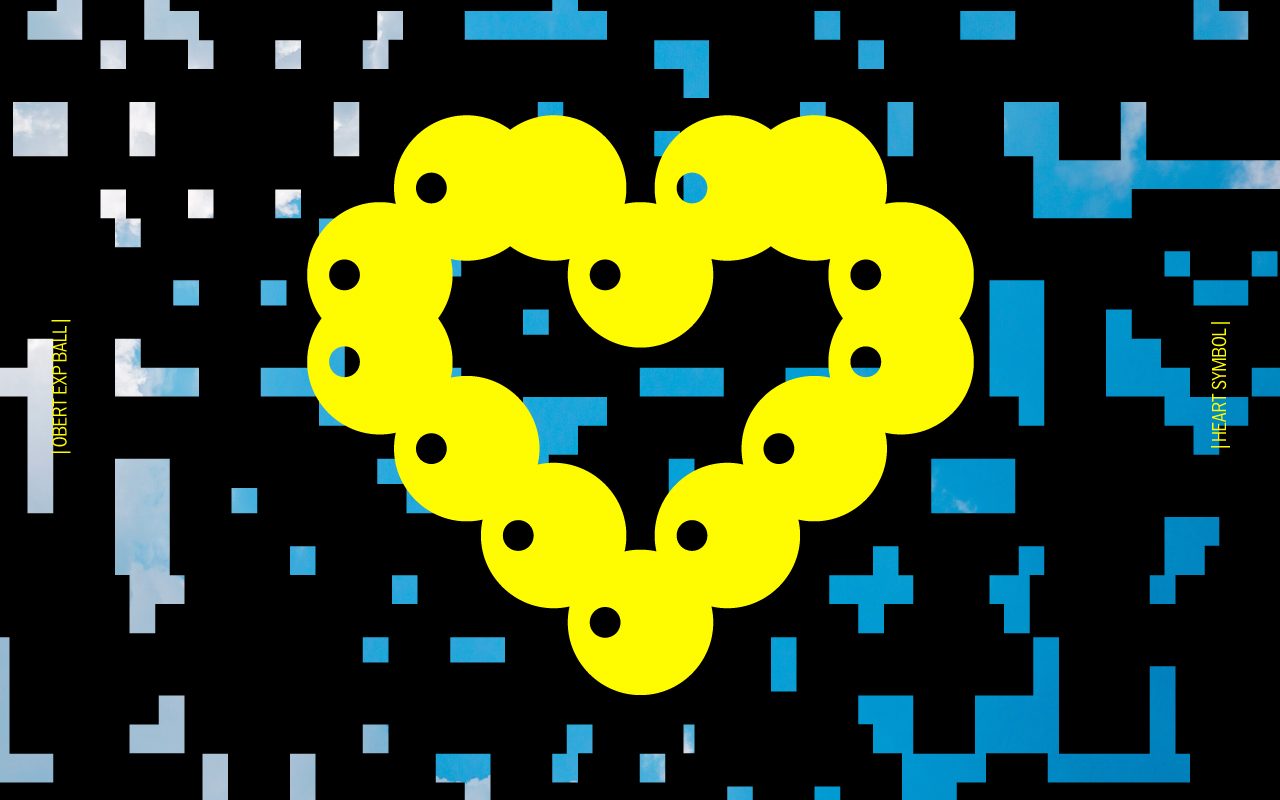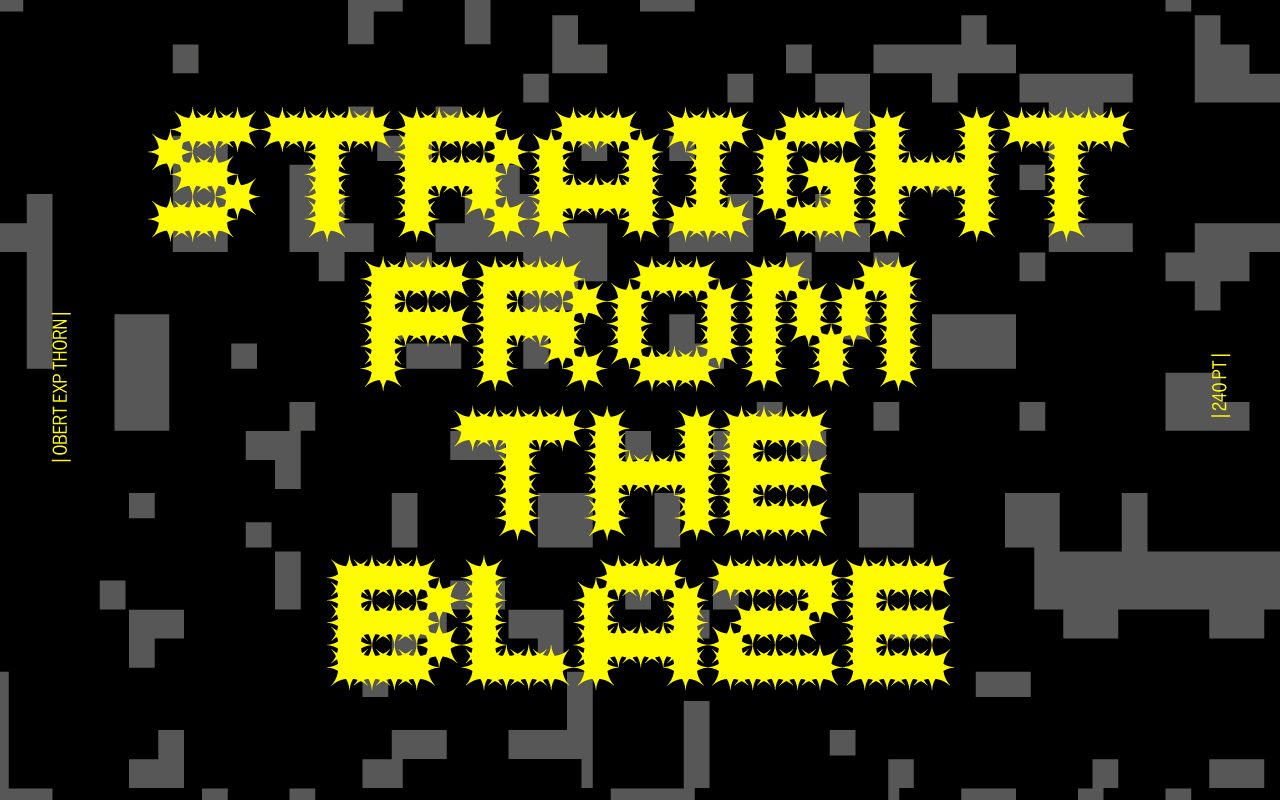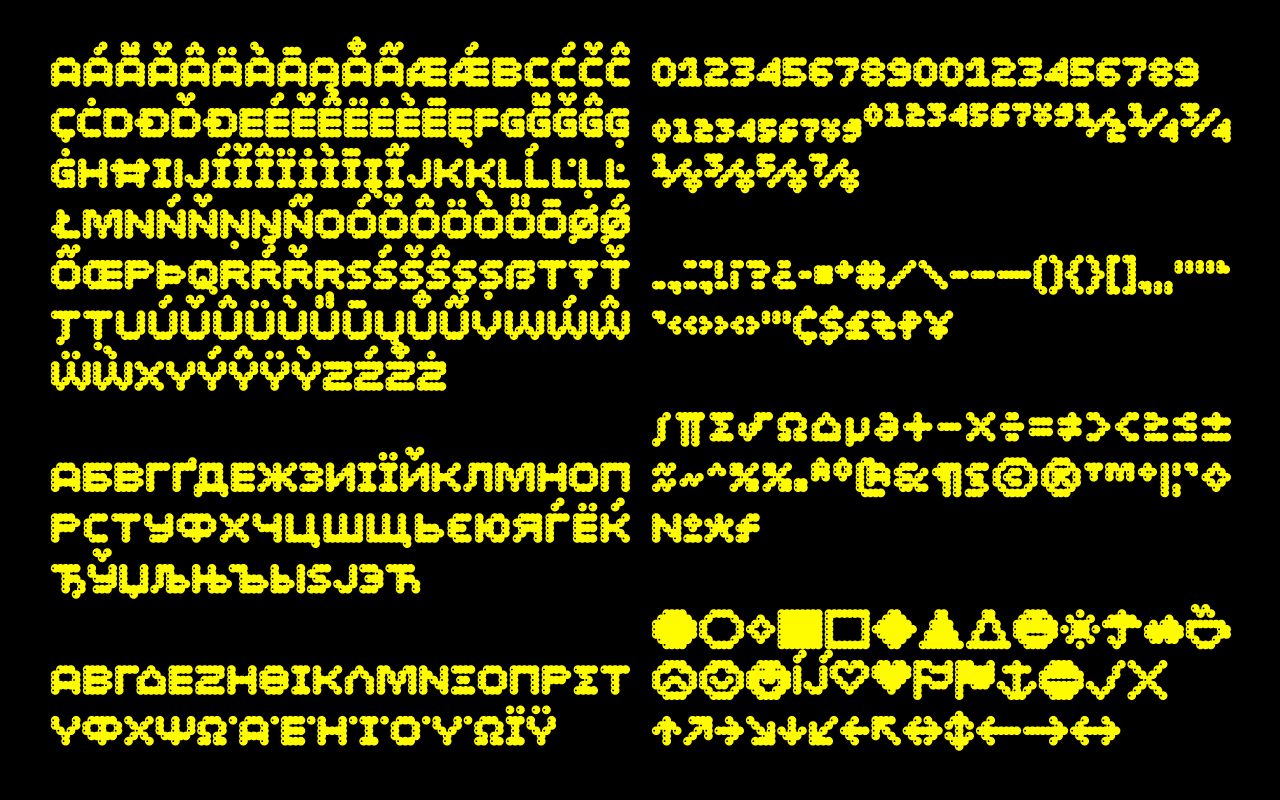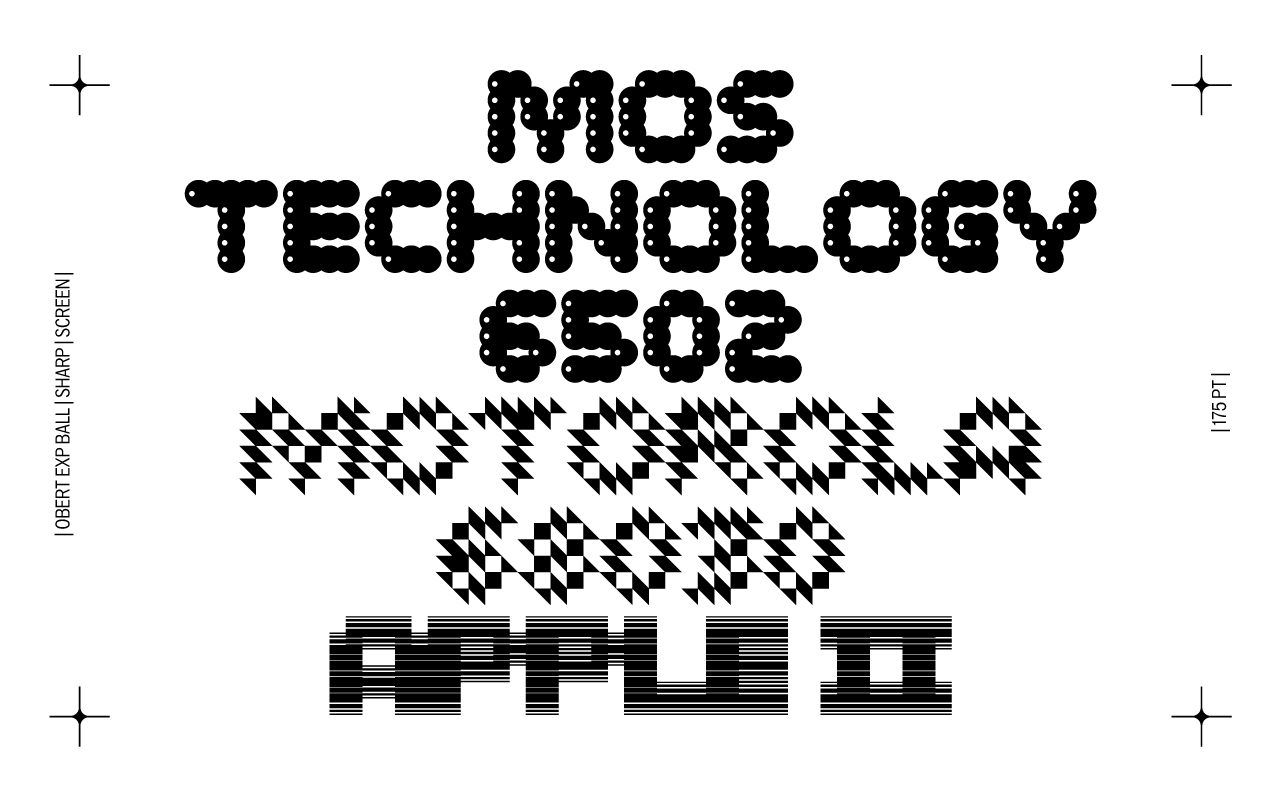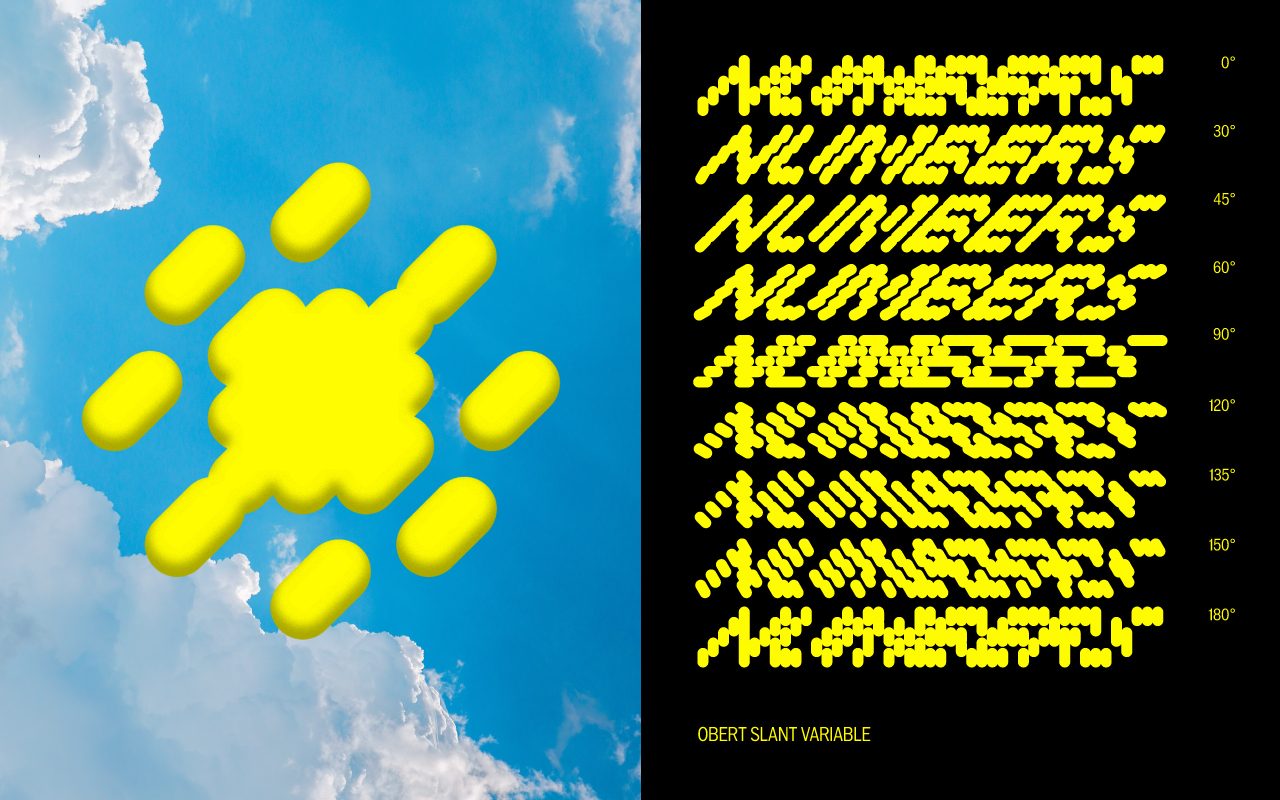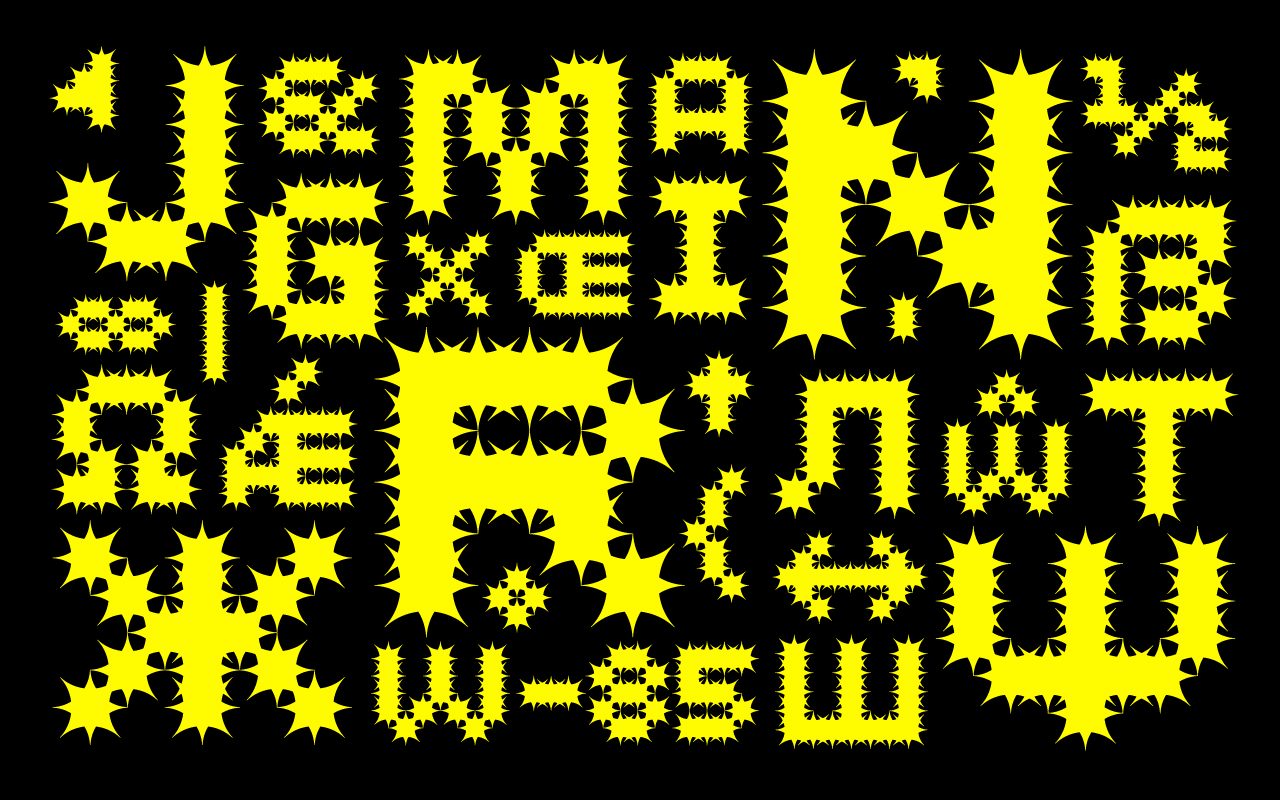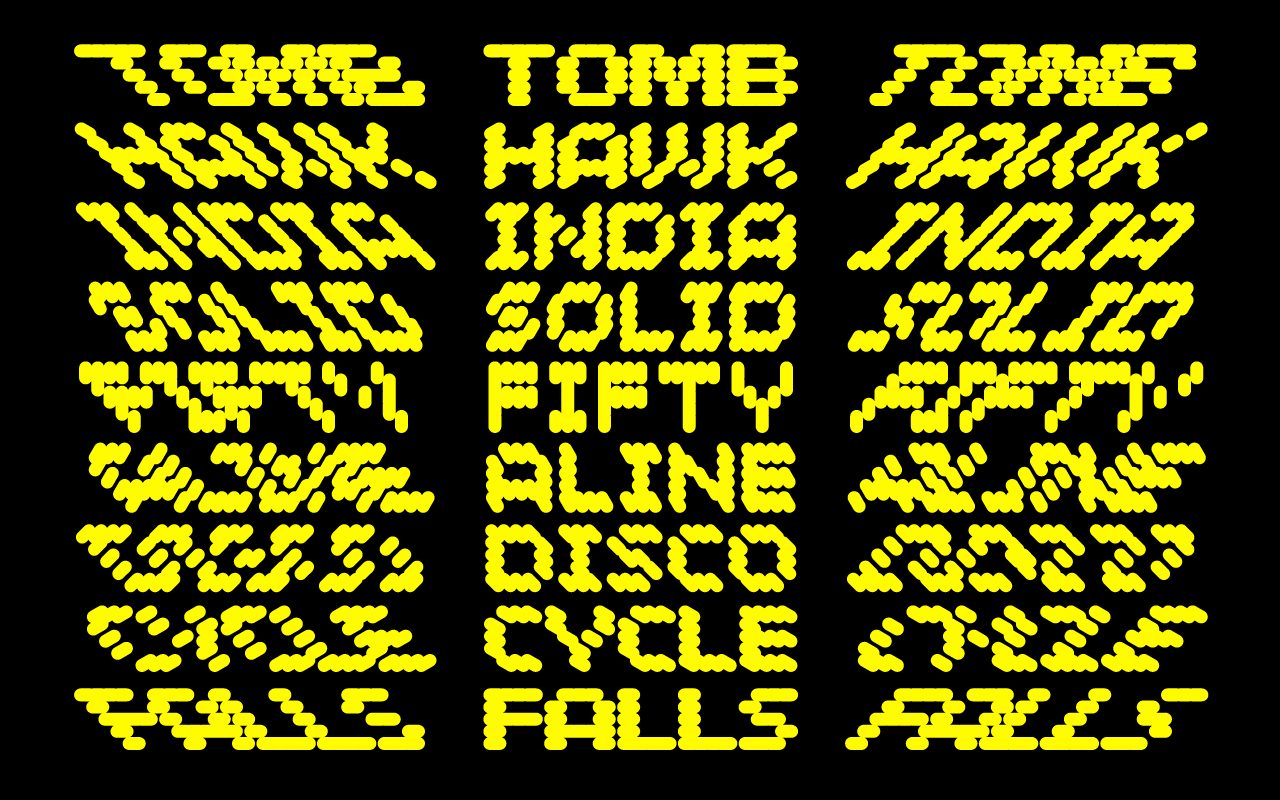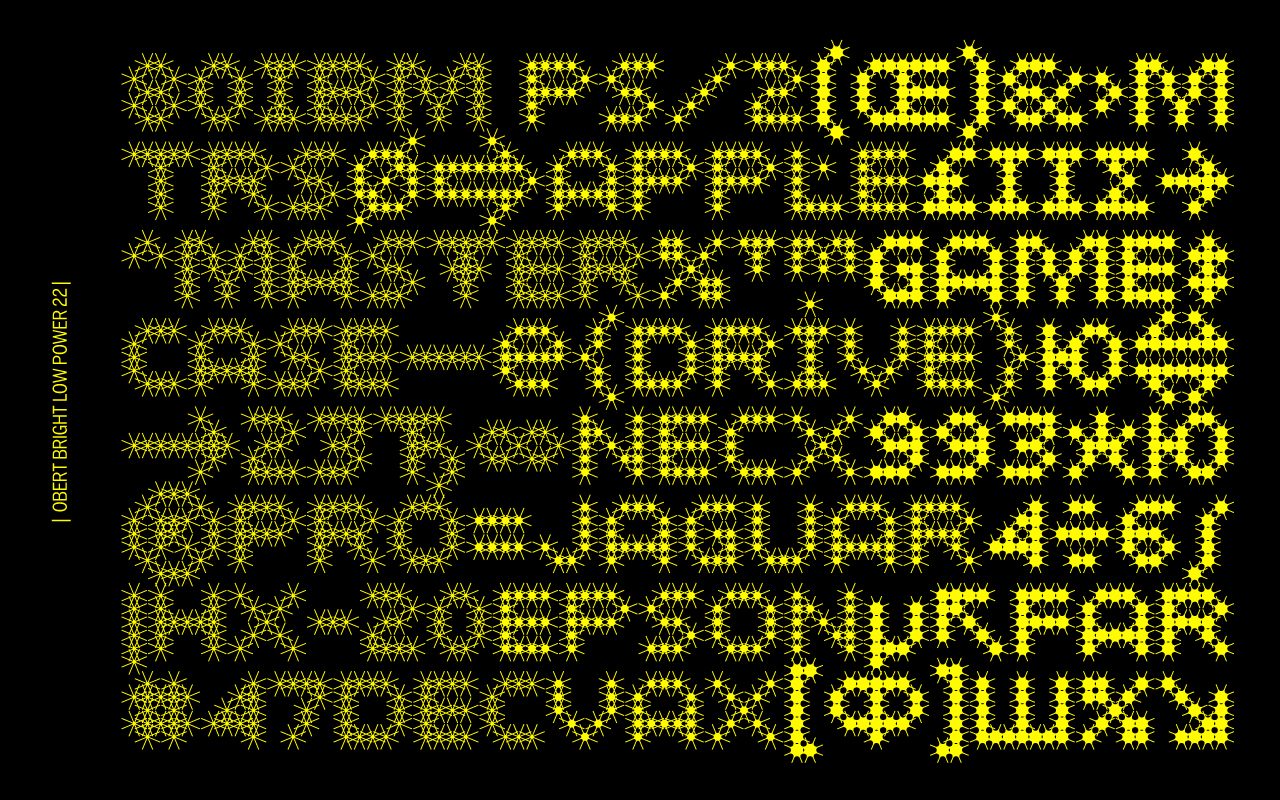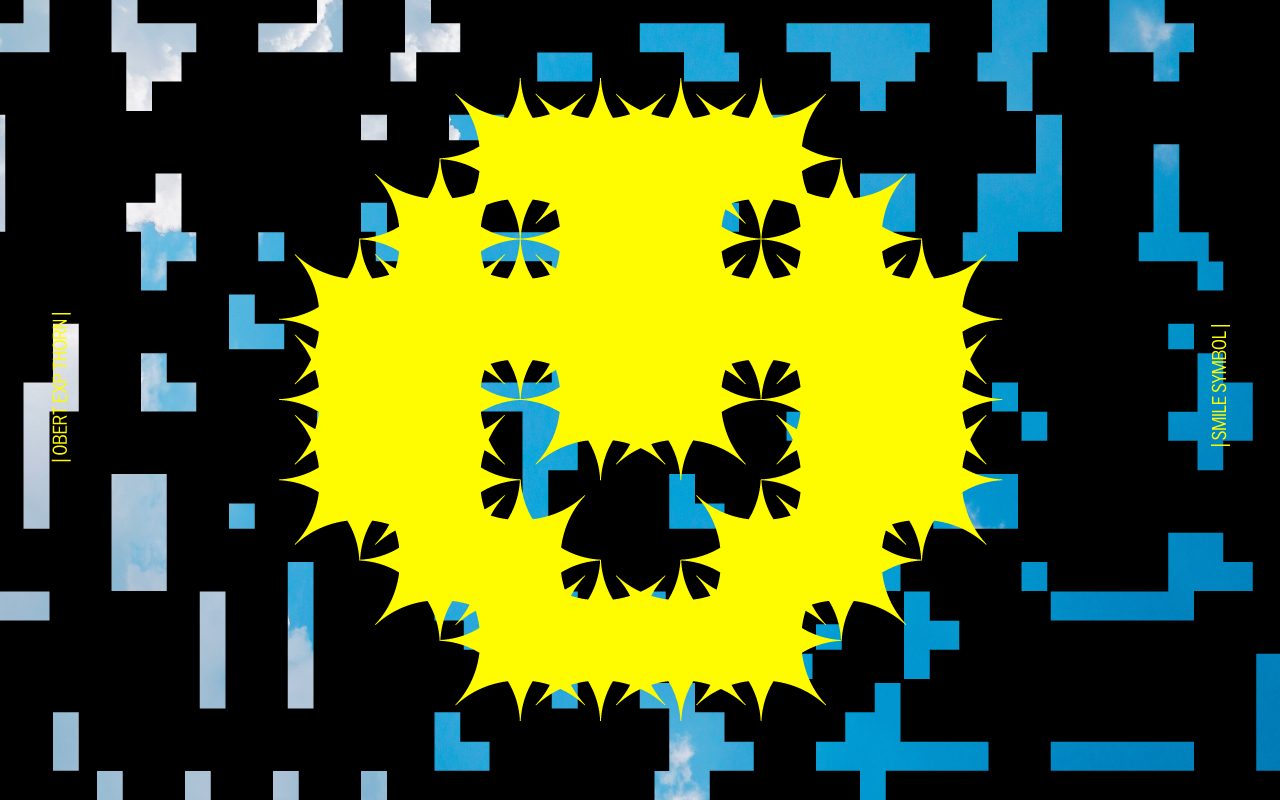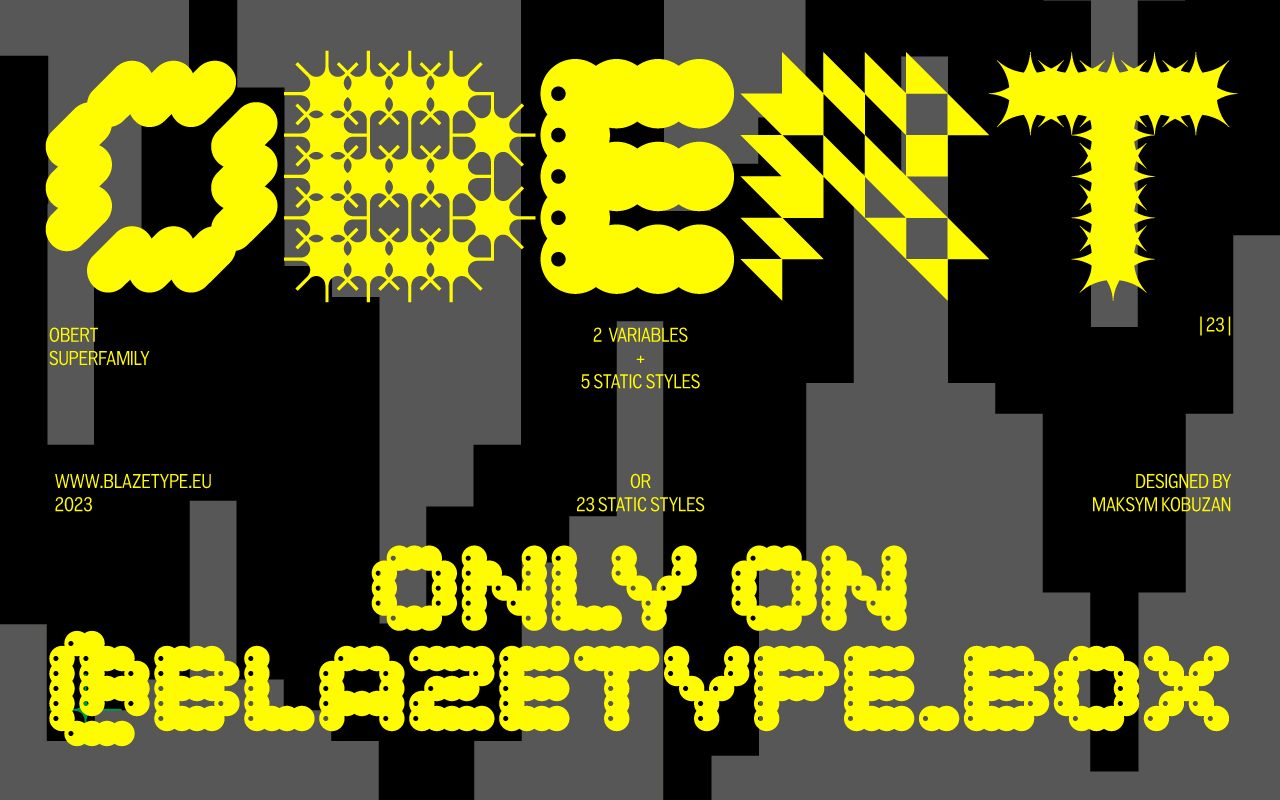
Obert
Obert Superfamily consists of several slightly different typefaces.
Obert BASIC is a 2-axis variable experimental modular typeface. Each module resembles a capsule in appearance and can rotate 180 degrees, and characters can tilt 45 degrees without distorting the module. With this, the letters are turned into abstract forms that can be used as decoration. Using the sliders to edit the Slant and Rotation, you can achieve the most unexpected results.
Obert BRIGHT is also part of the OBERT Superfamily. With the help of 2 variable axes, it can create the effect of brightness. And also each module can be rotated 180 degrees, creating a flickering effect.
Obert EXP is a separate 5 styles inspired by different properties of objects or things that surround us.
Obert Superfamily consists of 23 static styles or 2 variable + 5 static styles.
The name of the typeface comes from the Ukrainian word «Оберт», which means "Rotation".
Equipped with Extended Latin, Greek and Cyrillic support.
Maksym Kobuzan